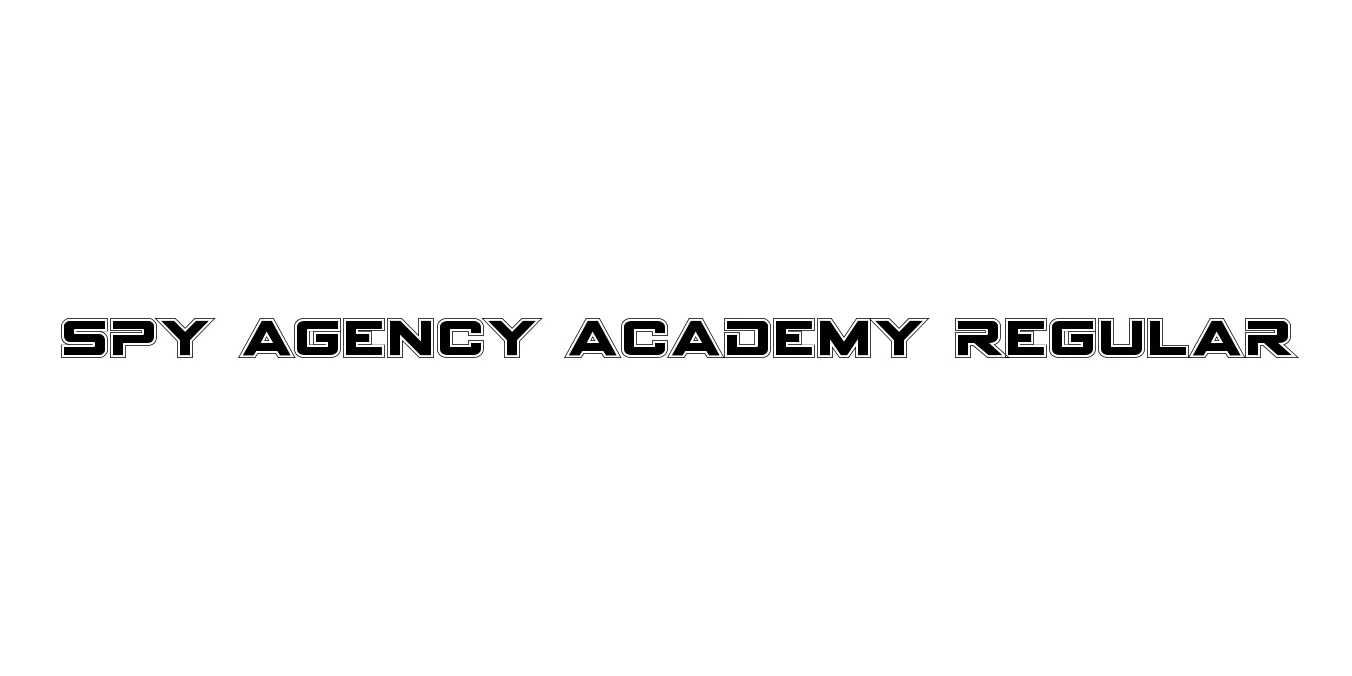
Spy Agency Academy Regular
Designed by Iconian Fonts (Dan Zadorozny)
| Font Name | Spy Agency Academy |
| Category | Techno / Sci-Fi |
| Designer | Iconian Fonts (Dan Zadorozny) |
Spy Agency Academy Regular is a specialized display typeface created by the prolific designer Dan Zadorozny of Iconian Fonts. This font represents a unique intersection between traditional collegiate block lettering and sleek, futuristic techno styles. Its wide, robust character set and sharp geometric terminals evoke a sense of high-tech authority, making it a standout choice for projects that need to convey both discipline and modern innovation.
Part of the broader Spy Agency family, the Academy variant focuses on a heavy-duty, structured aesthetic often associated with elite institutions, military academies, or secret intelligence organizations. Due to its high-impact visual weight and distinct sharp-edged counters, it has become a popular choice among graphic designers for branding in the gaming, sports, and cinematic industries where a powerful and futuristic presence is required.
Spy Agency Academy Regular Best Uses
Excellent for varsity-style logos, team jerseys, and athletic equipment branding.
Ideal for HUD elements, title screens, and sci-fi genre UI design.
Strong choice for action-oriented movie posters and high-impact opening sequences.
Perfect for bold streetwear graphics and collegiate-inspired fashion.